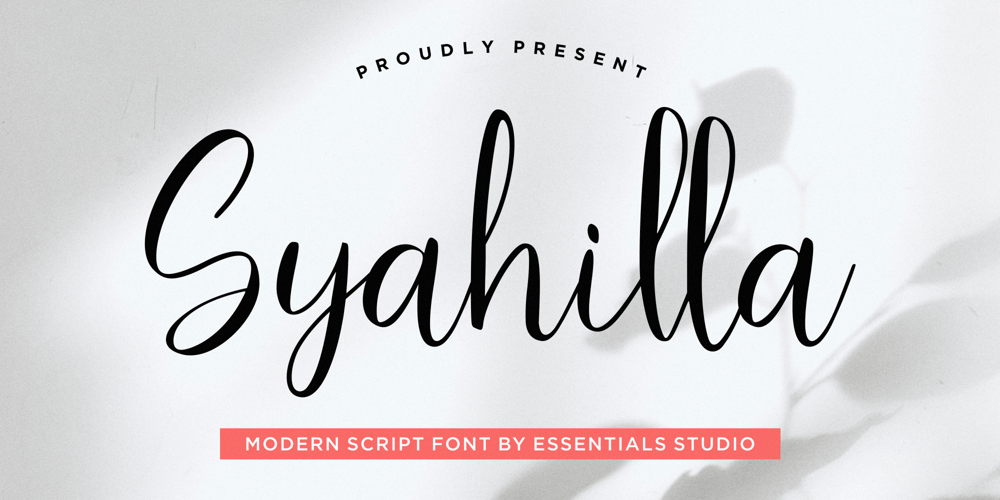
Syahilla Font Family was designed by Sulthan Mada Maulana Tsani and published by Essentials Studio. Syahilla contains 1 styles and family package options. Introducing by Essentials StudioProudly Present, Syahilla Is a A Modern Handwritten Script FontSyahilla is perfect for product packaging, branding project, megazine, social media, wedding, or just used to express words above the background.